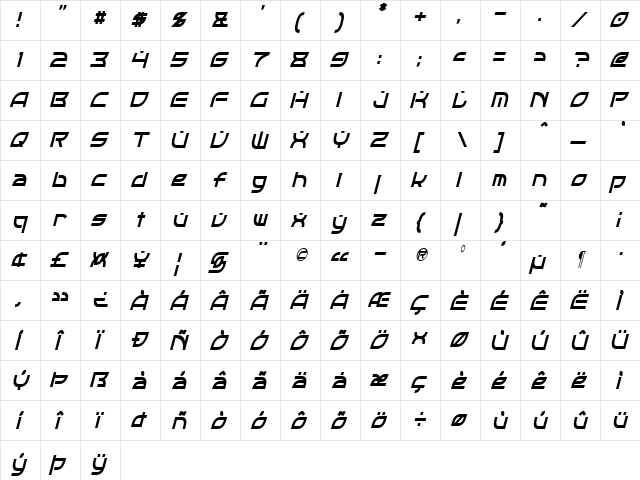
OpTic Condensed Italic Font Preview
| Designer | Neale Davidson |
Design Context for OpTic Condensed Typeface
OpTic Condensed is a composed and adaptable typeface that performs quietly and consistently across a wide range of design contexts. Its italic angle brings a sense of urgency and motion to the letterforms. The condensed width makes it efficient for tight spaces without sacrificing legibility.
Pro Tip: Try OpTic Condensed for annotation and caption copy alongside an upright companion — the contrast in angle creates a dynamic but ordered typographic system.